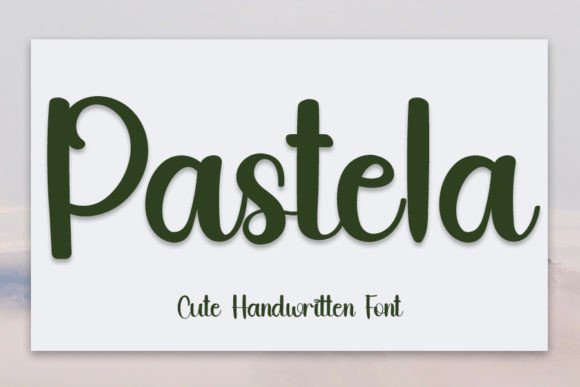
Introducing Pastela Font: Elegance, Refined Design, and Modern Style for Your Creative Endeavors
Embrace the beauty and elegance of Pastela Font, an exquisite script font that exudes sophistication and modernity. Its meticulously crafted characters radiate a sense of class and refinement, making it the perfect choice for a wide range of design projects.
Unleash your creativity with Pastela, a versatile font that effortlessly adapts to your design vision. Use it to create logos and branding that command attention, or let it add charm to your invitations and stationery. Elevate your wedding designs with Pastela's romantic appeal, or use it to craft social media posts that instantly captivate your audience.
Step into a world of endless possibilities with Pastela Font. Express your individuality through logos that reflect your unique brand identity. Create business cards that leave a lasting impression, ensuring you stand out from the competition. Design stunning posters and flyers that draw the eye and convey your message with impact.
Experience the power of Pastela Font, a font that transforms your designs into works of art. Let your creativity flourish as you craft enchanting invitations and greeting cards that convey heartfelt emotions. Elevate your packaging designs, adding a touch of elegance that entices customers to discover what's inside. Bring your presentations to life with Pastela's captivating charm, ensuring your ideas leave a lasting impression.
Pastela Font: Where Creativity Meets Sophistication
With Pastela Font, you hold the key to unlock a world of limitless creative expression. Its versatility allows you to explore a vast array of design possibilities, while its beauty ensures your creations radiate elegance and refinement.